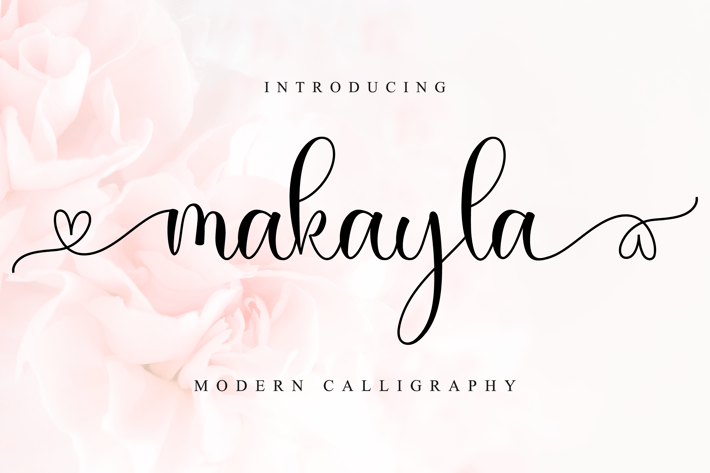
Makayla - A Lovely Script Font
Makayla is an exquisite handwritten font, masterfully designed to become a true favorite. It maintains its classy calligraphic influences while feeling contemporary and fresh. Fall in love with it and bring your projects to the highest levels!
Modern Handwritten Font
Beautiful Swash (Ending tail)
Beautiful Titling (Beginning tail)
Special Ligatures